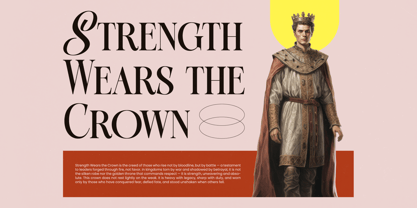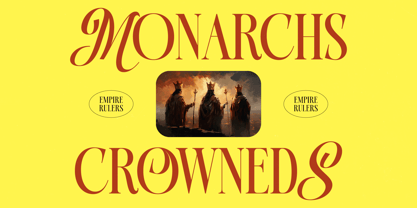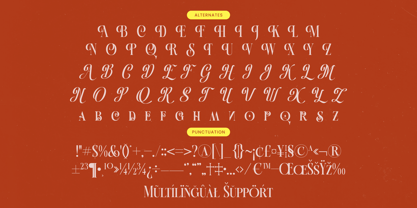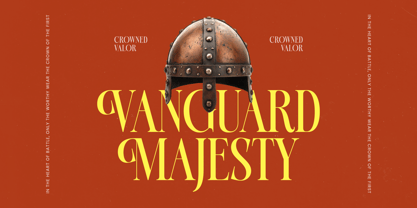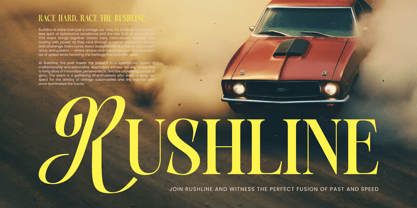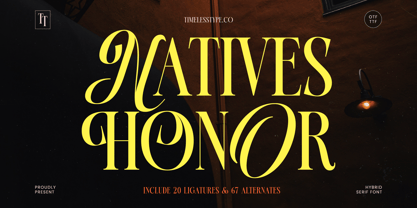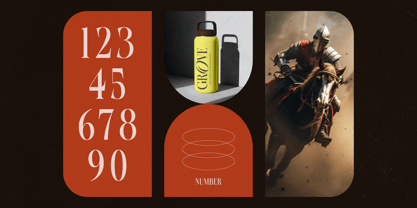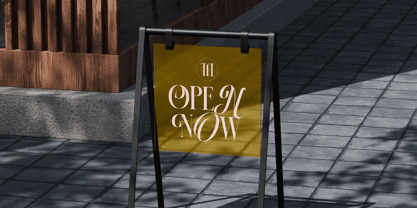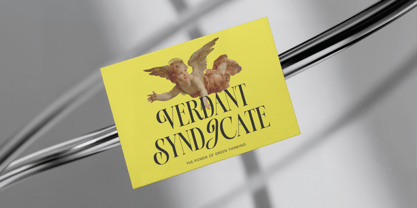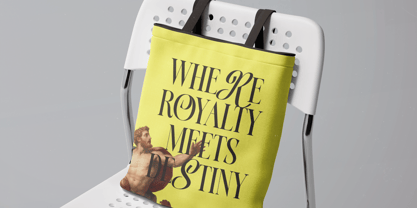
Natives Honor
Natives Honor - Hybrid Serif Font , from Timelesstype .Co , Suitable for any projects such as: logos, branding projects, homeware designs, product packaging, mugs, quotes, posters, shopping bags, t-shirts, book covers, name card, invitation cards, greeting cards, label, photography, watermark, special events, and all your other luxury and beautiful projects that need a Luxury Serif taste.